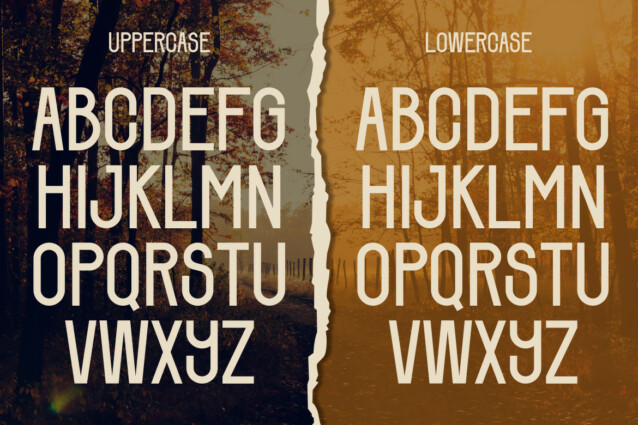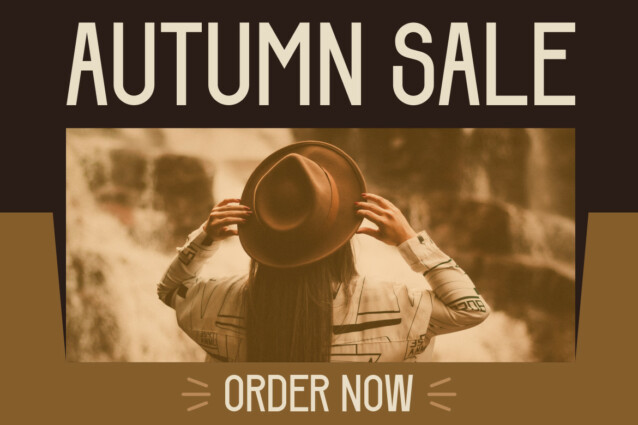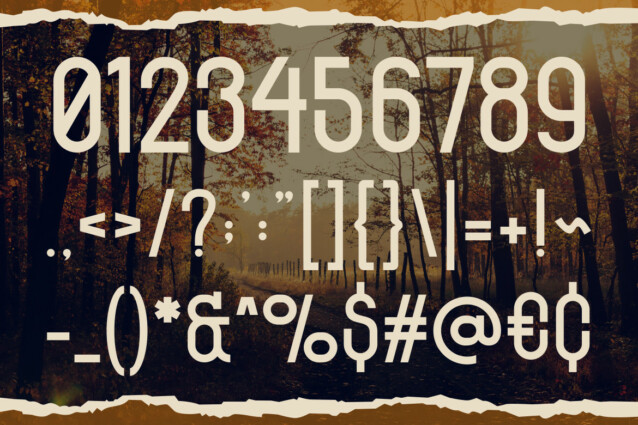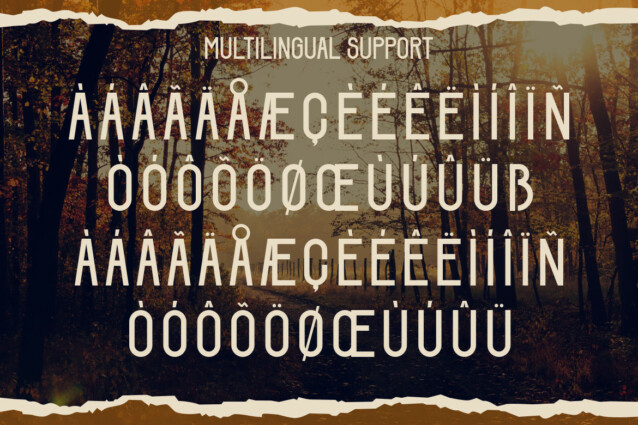
Falling Dried Font
Falling Dried Font is highly suitable for projects that aim to depict the beauty and charm of the autumn season. It works well for designs such as invitations, greeting cards, posters, and other creative projects, imparting a stunning natural touch and infusing the captivating ambiance of the fall season into every design.